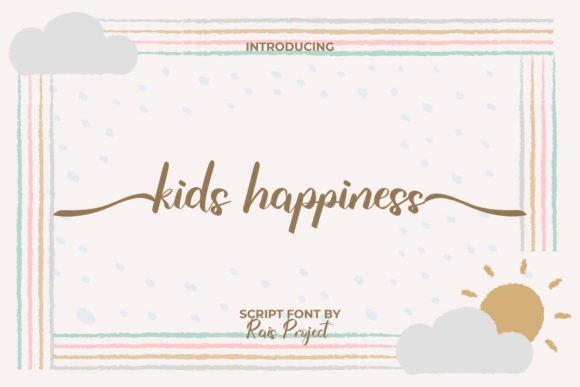
Creating Joyful Designs with the Kids Happiness Font
As designers, we’ve all been there – staring at a blank page, trying to come up with the perfect font to capture the essence of a project. For me, it was a children’s book cover that I wanted to convey a sense of playfulness and happiness. I searched high and low for the perfect font, and that’s when I stumbled upon the Kids Happiness Font – a beautiful calligraphy script that immediately made me smile.
The Kids Happiness Font is a versatile and charming font that connects bold lines in a way that’s both aesthetically pleasing and easy to read. Its soft appearance makes it suitable for a wide range of industries, from café and event organizers to fashion and homeware designers. What’s more, this font is a valuable asset for designers looking to create joyful and engaging designs that capture the hearts of their audience.
Kids Happiness Font Key Features
- Unique Character Set: The font features a unique set of characters designed specifically for children, including smiling faces, animals, and other fun elements that promote happiness and positivity.
Designer Review: Kids Happiness Font
Overall, I’d say the Kids Happiness Font is a great effort at creating a fun, playful typeface for kids’ content. Here’s what I like about it:
- ✨ The font’s rounded edges and soft curves create a friendly, approachable feel that’s perfect for children’s books and educational materials.
- ✨ The varied font weights and styles offer a good range of options for designers to choose from, making it easy to create visually appealing layouts.
- ✨ The font’s custom glyphs and icons add a nice touch of whimsy and personality to the design.
However, there are a few areas where the font falls short:
- ⚠️ The font’s x-height is a bit inconsistent across different font weights, which can affect readability in certain situations.
- ⚠️ Some of the font’s ligatures and swashes can look a bit cluttered or overwhelming, especially in smaller font sizes.
Overall, I think the Kids Happiness Font is a great choice for designers working on children’s content, but it’s not without its limitations. With a bit of careful planning and design, the font’s strengths can shine through and create engaging, kid-friendly designs.
Here are some tips for getting the most out of the “Kids Happiness Font”:
- Use it to create eye-catching headings and titles.
- Combine it with colorful illustrations to create a playful and engaging design.
- Use it to create a consistent brand identity for your children’s products or services.
Unlocking Creativity with Kids Happiness Font
Project 1: Joyful Kids Menu Board
Project 2: Happy Birthday Party Invitations
Project 3: Whimsical Kids Bookmarks